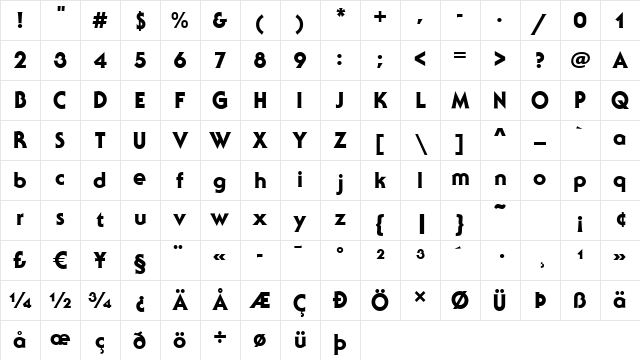
Sebastian-Heavy Regular Free Font
Sebastian-Heavy Regular
Complete Sebastian-Heavy Regular glyph index. Displaying only characters natively supported by Sebastian-Heavy Regular font.
Design Context for Sebastian-Heavy
Sebastian-Heavy is a composed and adaptable typeface that performs quietly and consistently across a wide range of design contexts.